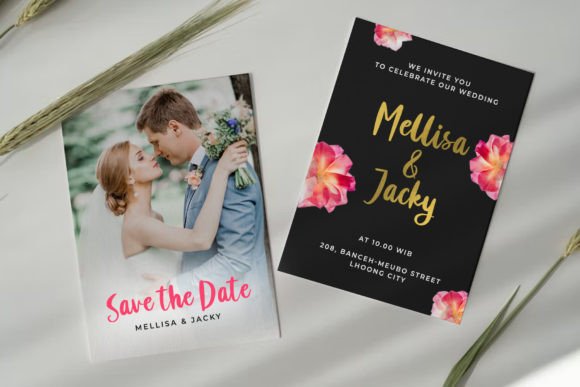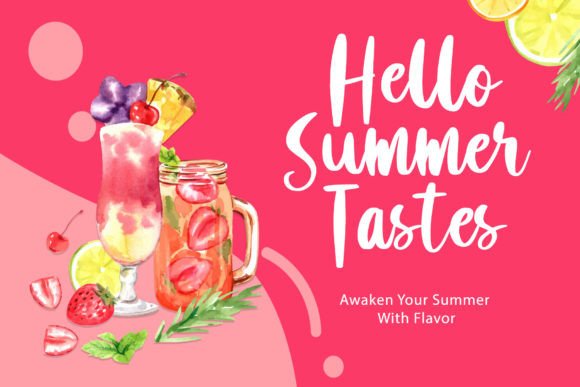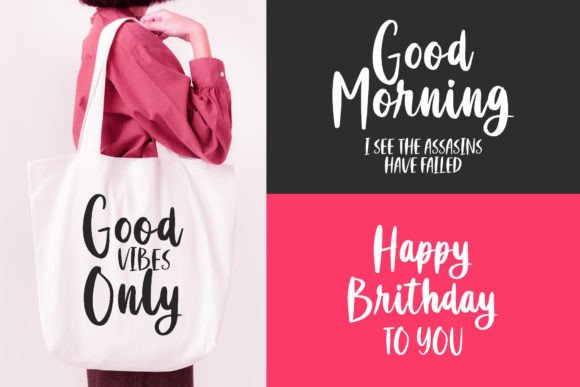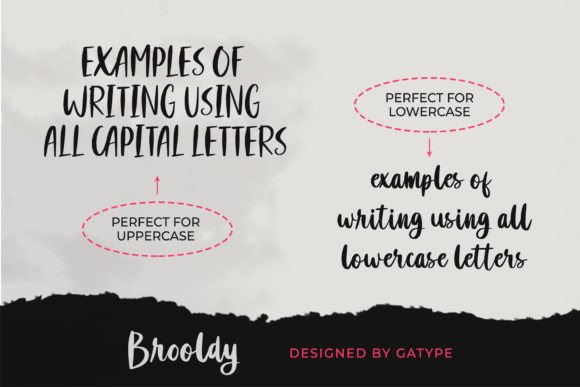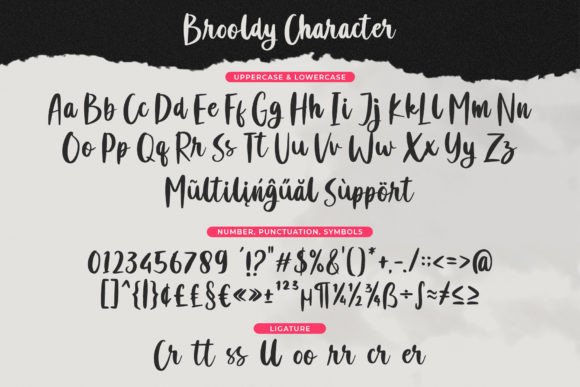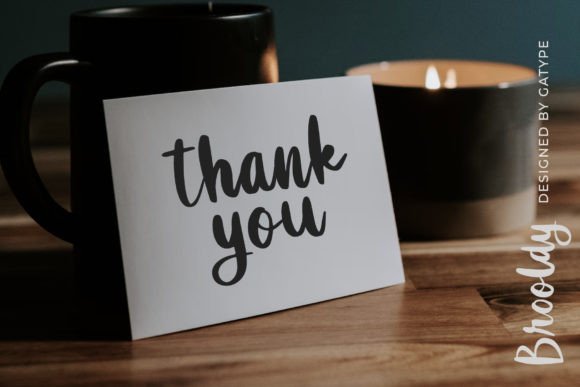
Introducing Brooldy Font: The Modern and Bold Handwritten Script Font
Are you tired of using the same old fonts in your design projects? Look no further! Brooldy Font is here to revolutionize your typography with its modern and bold handwritten script style. In this article, we’ll dive into the world of Brooldy Font and explore its features, benefits, and uses. Whether you’re a designer, crafter, or simply someone who appreciates great typography, you won’t want to miss out on this fantastic font.
What is Brooldy Font?
Brooldy Font is a modern and bold handwritten script font designed to add a touch of elegance and sophistication to your projects. Its unique and stylish lettering makes it perfect for a wide range of applications, from branding and advertising to packaging and digital media. With its confident and eye-catching appearance, Brooldy Font is sure to make your designs stand out from the crowd.
Key Features of Brooldy Font
- Modern and Bold Design: Brooldy Font boasts a fresh and contemporary look that’s perfect for modern designs.
- Handwritten Script Style: The font’s handwritten script style adds a touch of personality and warmth to your projects.
- Highly Legible: Despite its bold and expressive design, Brooldy Font remains highly legible, making it suitable for body text and headlines.
- Multilingual Support: Brooldy Font supports multiple languages, making it a great choice for global brands and projects.
Benefits of Using Brooldy Font
So, why should you choose Brooldy Font for your projects? Here are just a few benefits of using this amazing font:
- Adds a Touch of Elegance: Brooldy Font’s sophisticated design adds a touch of elegance to your projects, making them perfect for high-end brands and luxury products.
- Boosts Brand Identity: With its unique and memorable design, Brooldy Font can help establish a strong brand identity and differentiate your brand from competitors.
- Versatile and Adaptable: Brooldy Font can be used in a wide range of applications, from digital media to print materials, making it a versatile addition to your font library.
Who Can Use Brooldy Font?
Brooldy Font is perfect for a variety of designers, crafters, and businesses, including:
- Graphic Designers: Add a touch of elegance and sophistication to your designs with Brooldy Font.
- Branding and Advertising Agencies: Use Brooldy Font to create memorable and impactful campaigns for your clients.
- Crafters and Makers: Add a personal touch to your handmade products and packaging with Brooldy Font.
- Digital Media Professionals: Use Brooldy Font to create engaging and stylish digital content, from social media graphics to website headers.
- Experiment with Different Sizes and Colors: Brooldy Font looks great in a variety of sizes and colors, so don’t be afraid to experiment and find the perfect combination for your project.
- Pair it with Other Fonts: Brooldy Font pairs well with a range of other fonts, so try combining it with different fonts to create a unique and stylish look.
- Use it Consistently: To get the most out of Brooldy Font, use it consistently across your project or brand. This will help establish a strong visual identity and make your designs more recognizable.